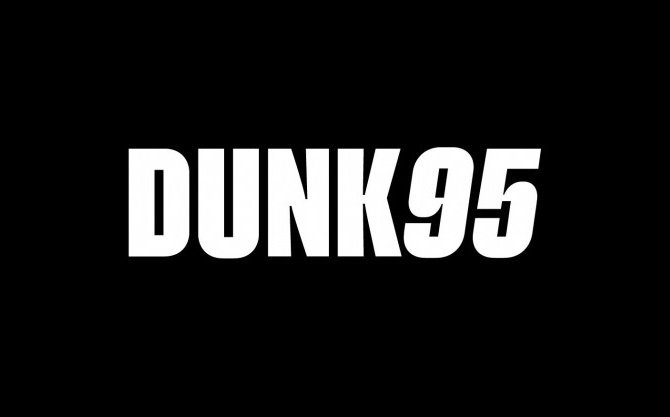
Dunk95 Font Family
Hello guys. Dunk95 Sans Serif Font is a modern and elegant serif font family. It’s a geometric sans serif font family with unique characters for a touch of distinction. Simple yet sophisticated, this typeface design gives a clean and modern appearance while carrying some almost retro tones. It’s perfect for most all aspects of graphic design, from creating a unique display layout, a quirky logo design and even long-form content.